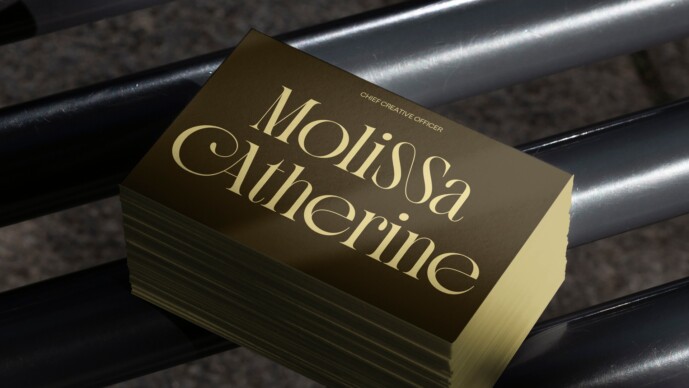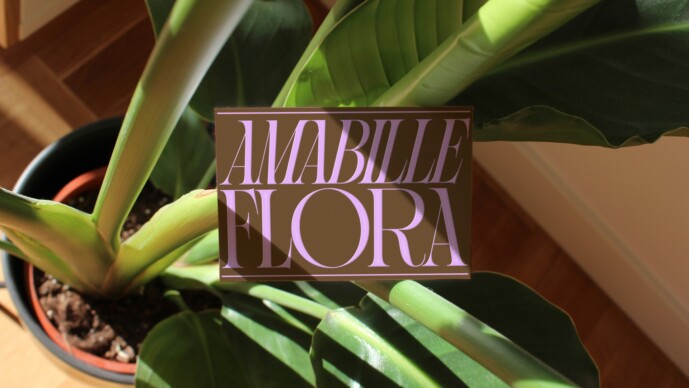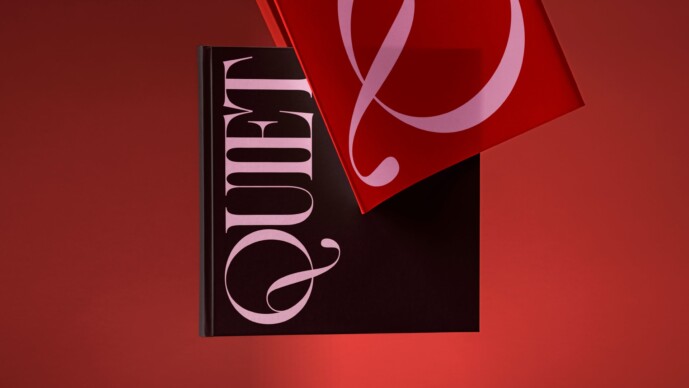
Ssonder Font
Ssonder Font is a Serif typeface inspired by the feeling of profound realization that each person you encounter has their own intricate and unique life, forming a delicate web of experiences and memories. With this in mind, Ssonder has been crafted to reflect the interconnectedness of individual stories through its design. The beautiful ligature stylistic sets and unconventional proportions create connections and unique flow within and between characters, symbolizing the connections that bind us all. Each letter is designed to maintain a sense of depth and sophistication.